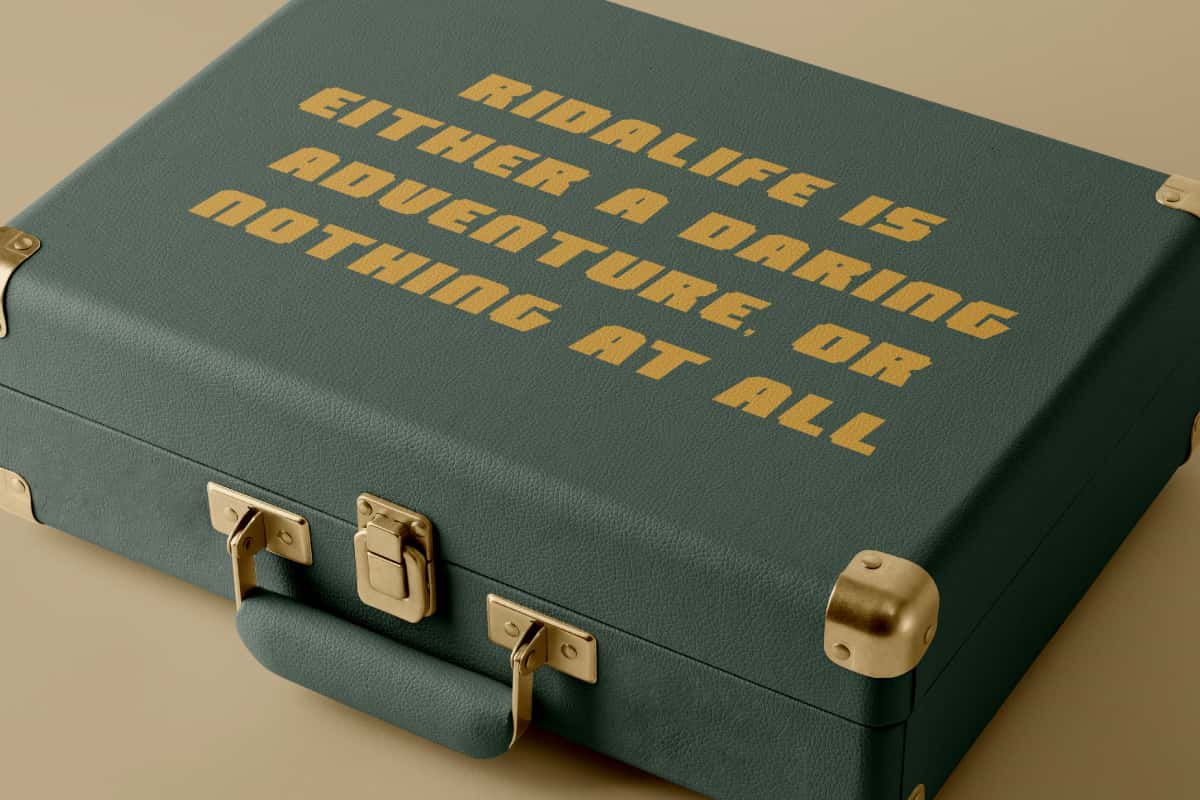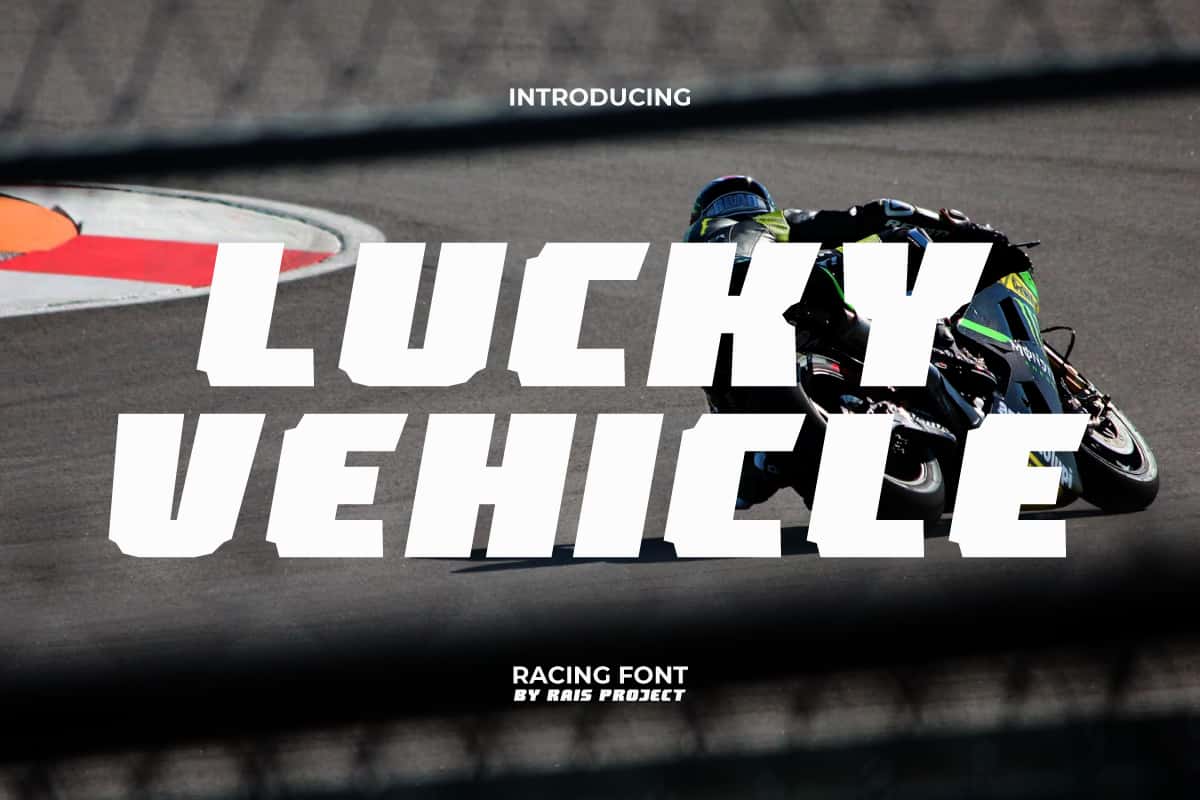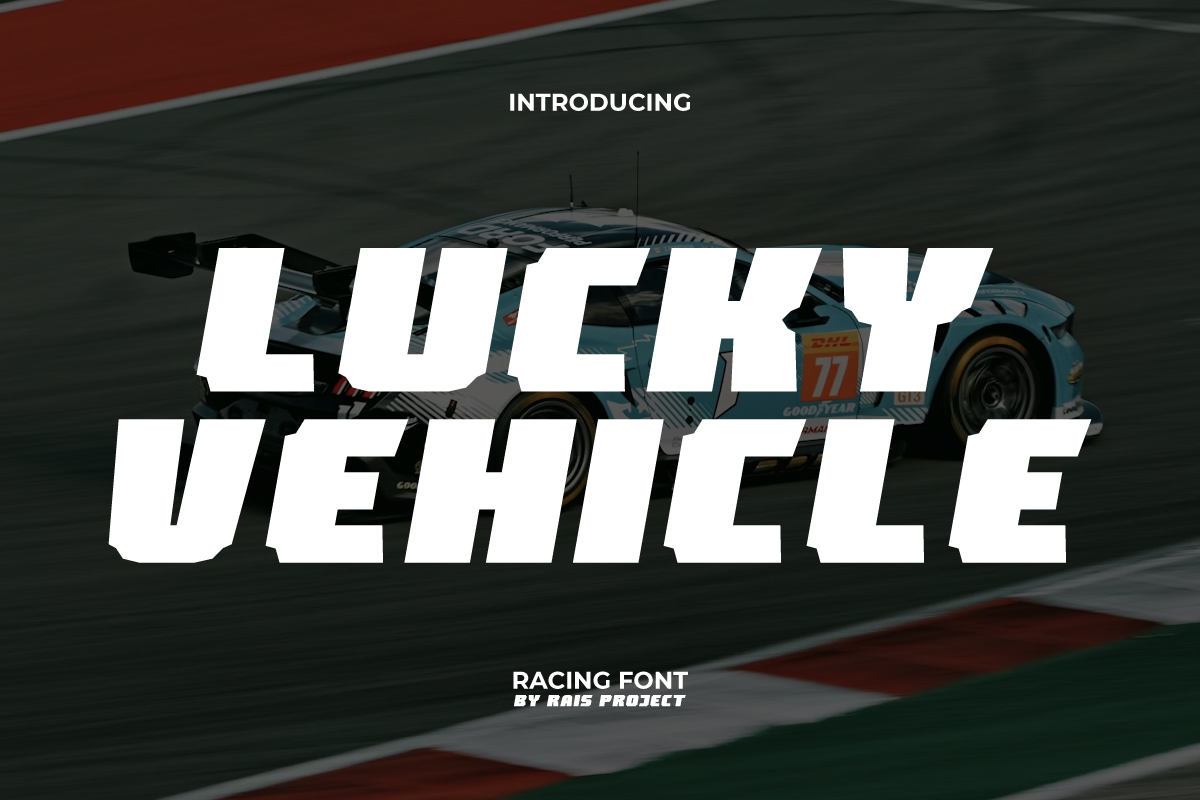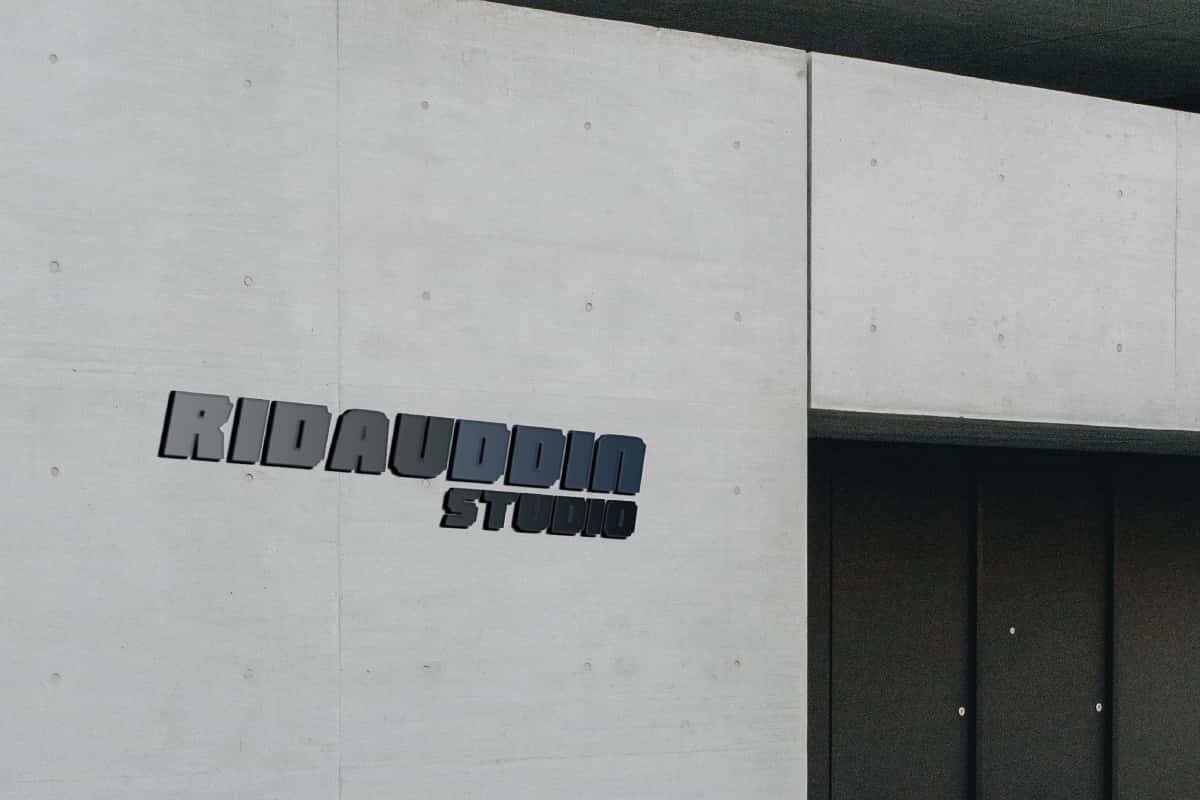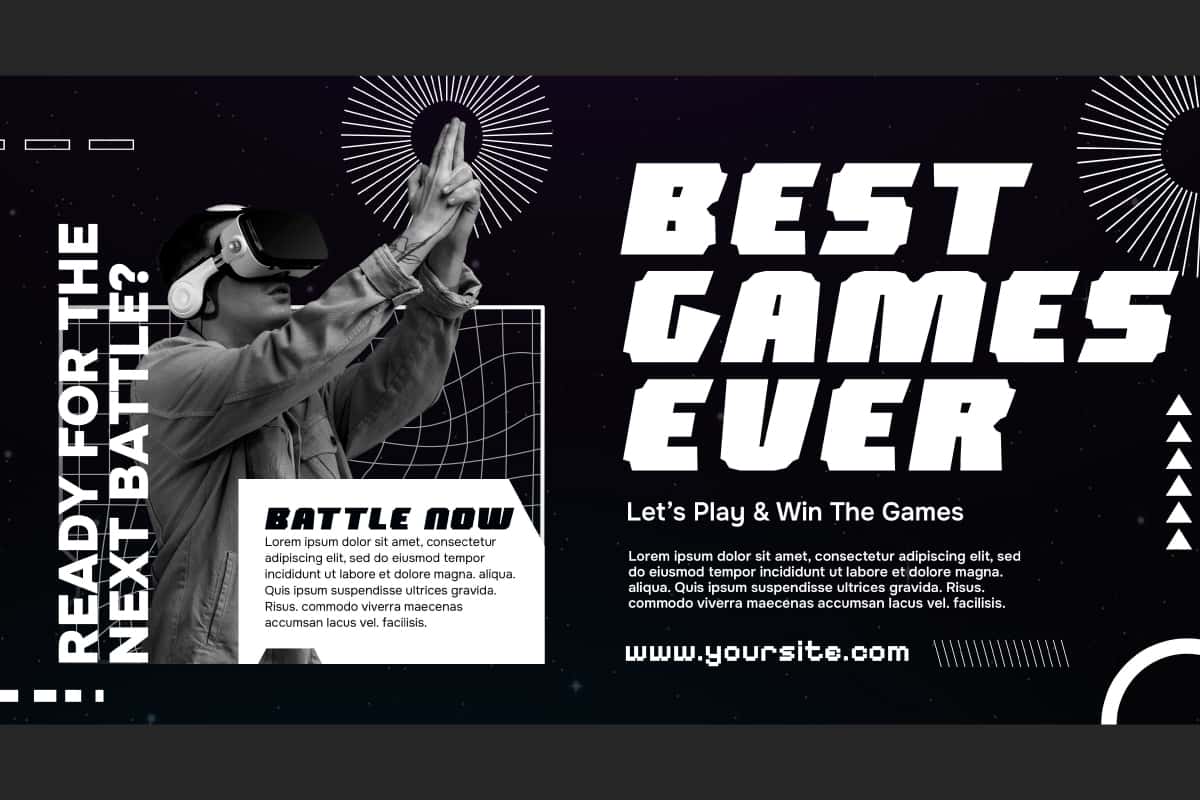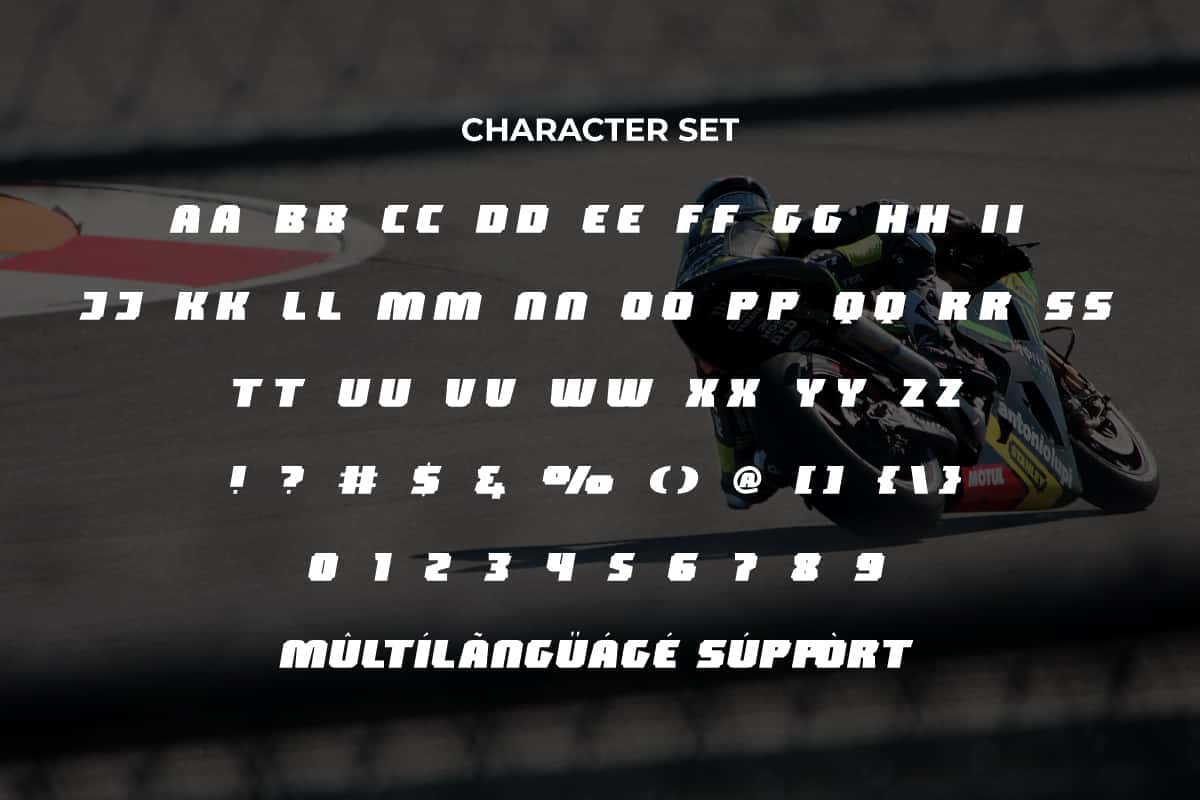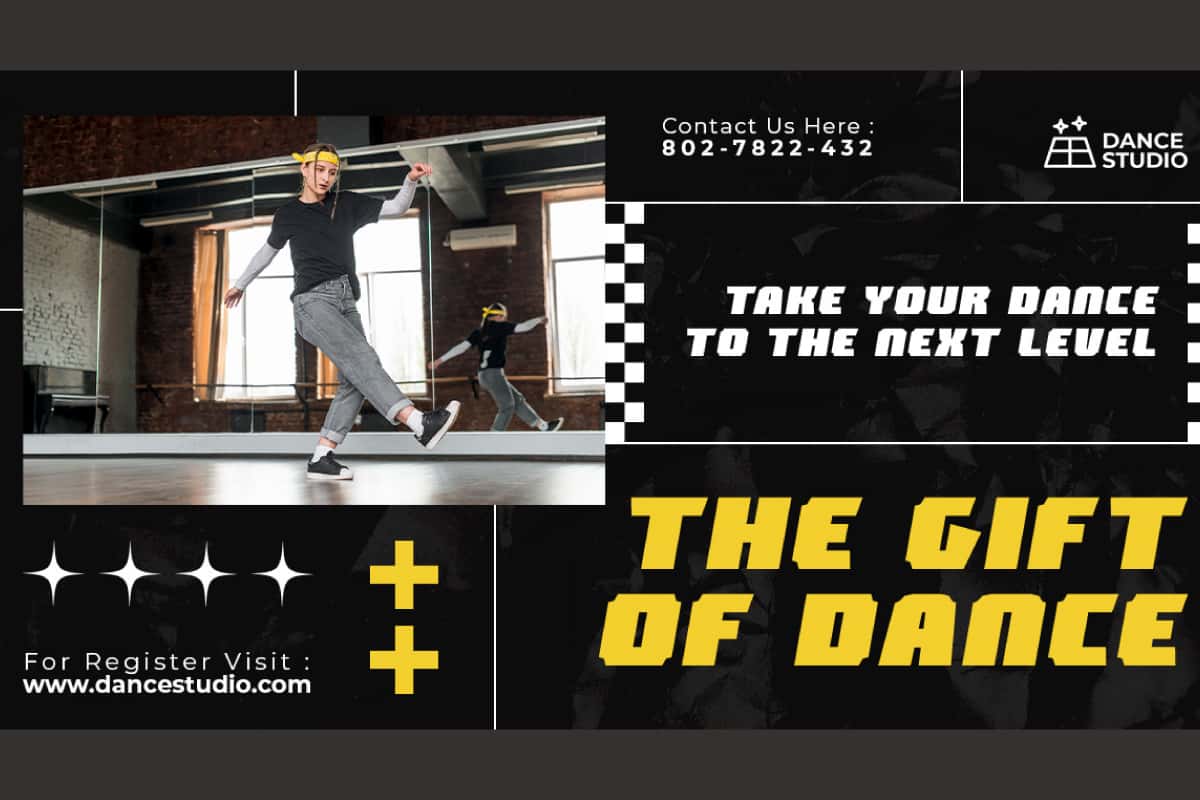
Lucky Vehicle Font
Lucky Vehicle Font is a bold and boxy racing font. Use this font on your designs to looks awesome!
Lucky Vehicle Font is a bold and a dynamic racing display font, well made by RaisProject. This font has an attractive shape so it can add coolness to every design you make. It will be good for label, poster, invitation, signage, cover, menu, custom design, brand image, product packaging, quotes, stationery, web, and more!
Introducing Lucky Vehicle Display Font – a bold, stylish, and modern typeface designed to bring speed, energy, and character to your creative projects. With strong strokes, sharp details, and a dynamic display style, Lucky Vehicle is perfect for designs that need to make an immediate impact. From sports branding and racing posters to gaming graphics, advertising campaigns, and digital content, this font is crafted to grab attention and leave a lasting impression.
Lucky Vehicle Display Font blends boldness with versatility. Its striking letterforms are ideal for logos, event promotions, product packaging, and social media graphics that demand a powerful look. Whether you’re working on motorsports branding, esports visuals, or lifestyle campaigns, Lucky Vehicle adds confidence and modern style to every design.
Lucky Vehicle Display Font includes a full set of Uppercase and Lowercase Letters, Numerals, Punctuation and Symbol. This beautiful font will be suitable for various industries, such as game, automotive, sports, fashion, accessories, advertisement, event or festival, cafe, photography, printing, publishing, real estate, etc.